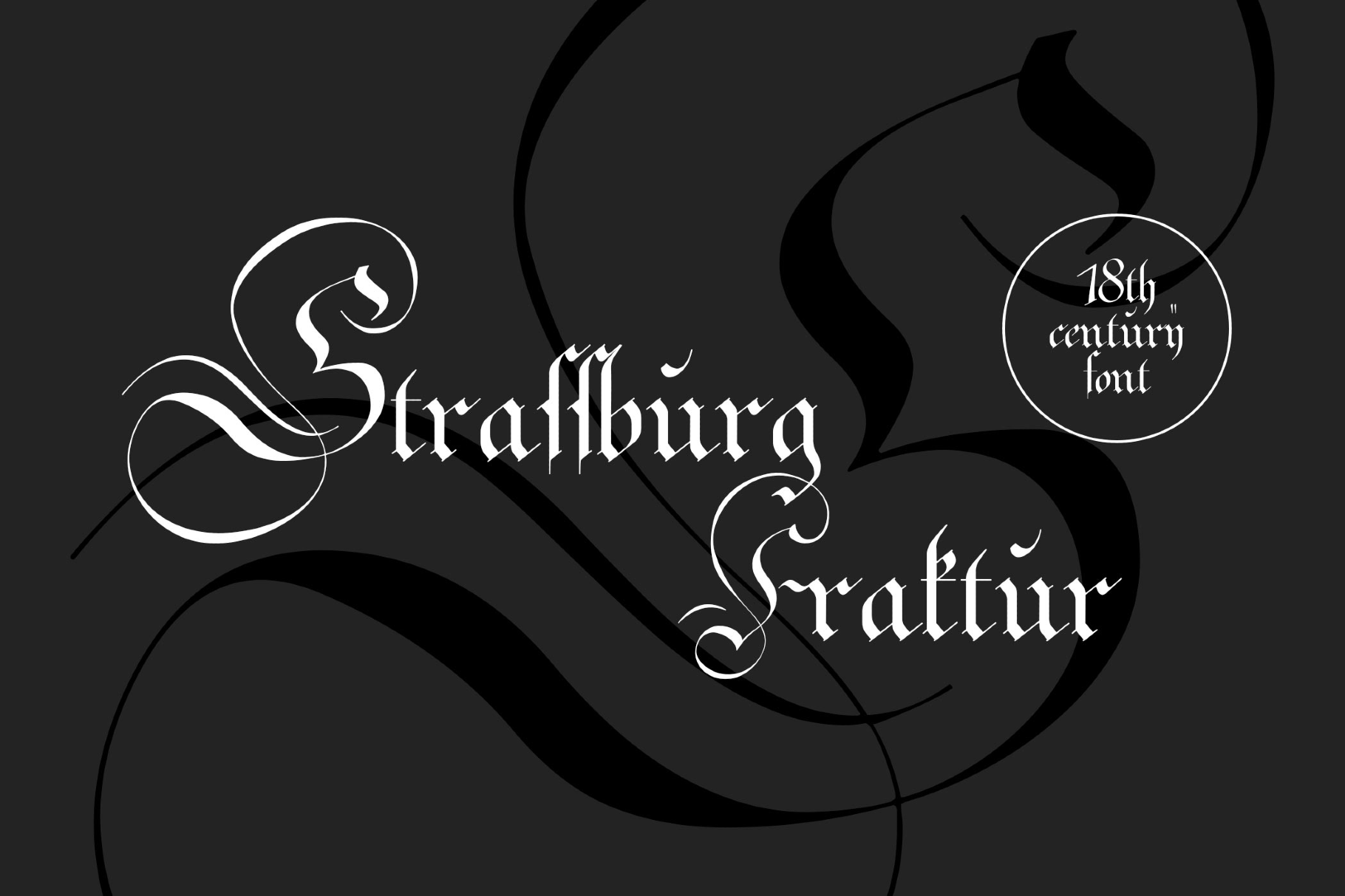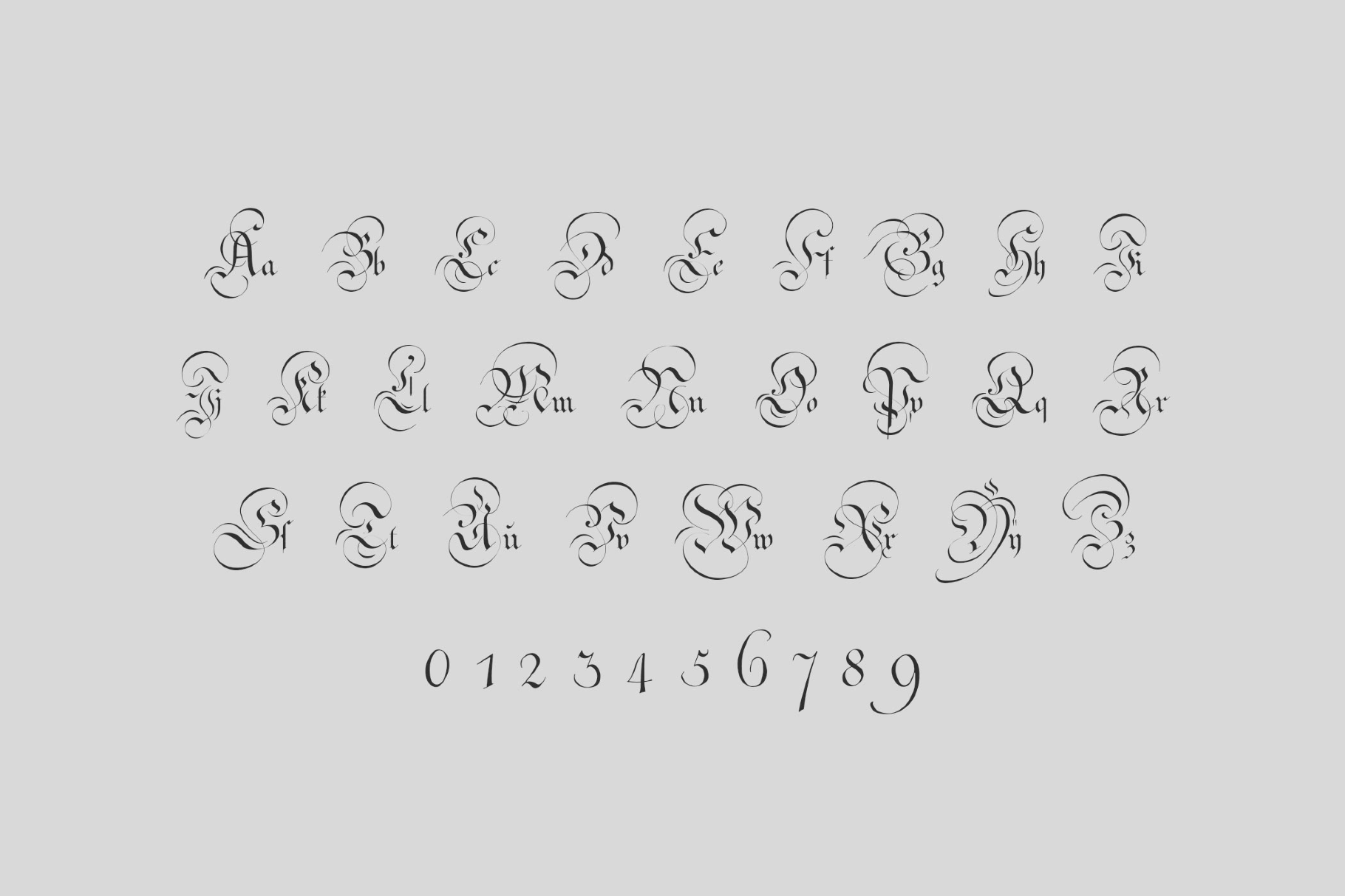
Strassburg Fraktur Font
An 18th-century–inspired Fraktur with a handwritten stance. High-contrast broken stems complement generous capital swashes, and the lowercase keeps a tight rhythm with pointed joins. The historic round "r" form provides an authentic cadence to word shapes.
Use it for newspaper nameplates, historical nonfiction jackets, museum and archive signage, certificates and diplomas, brewery and distillery labels, medieval-fair posters, folk-metal or goth logotypes, editorial drop caps, vintage-map titling, and heritage packaging.